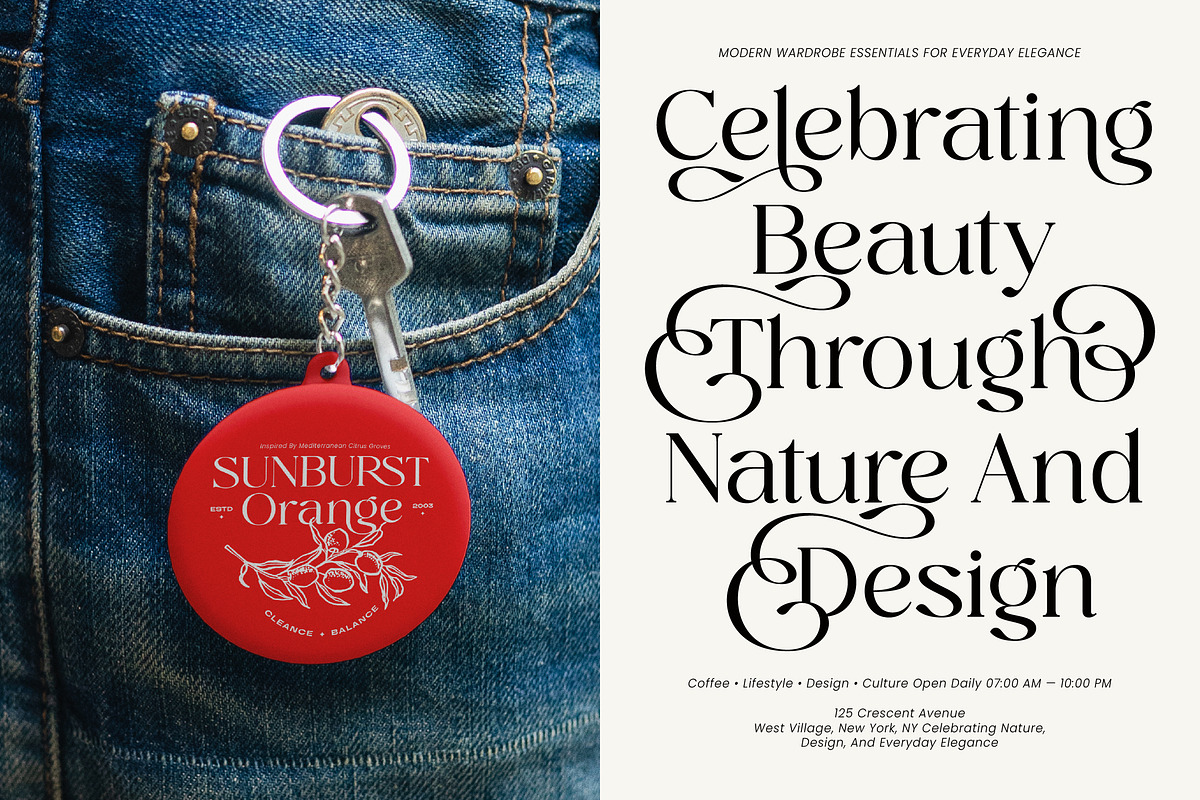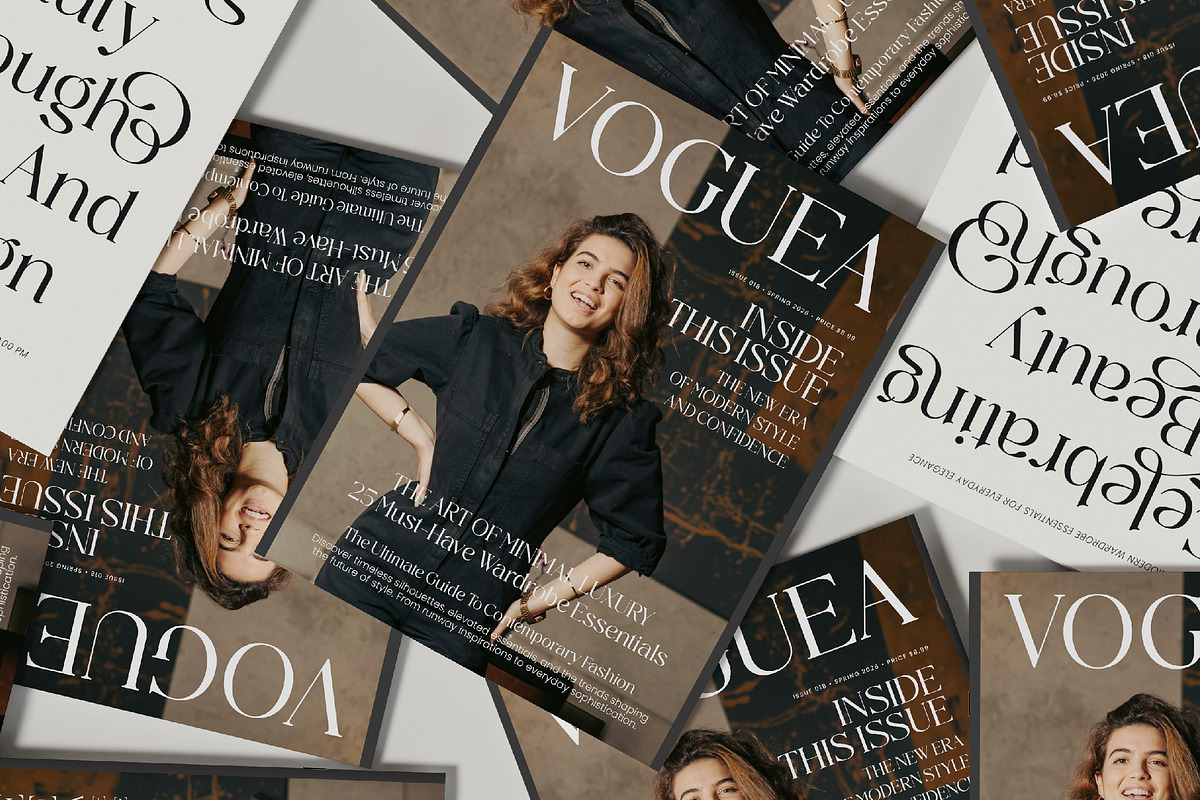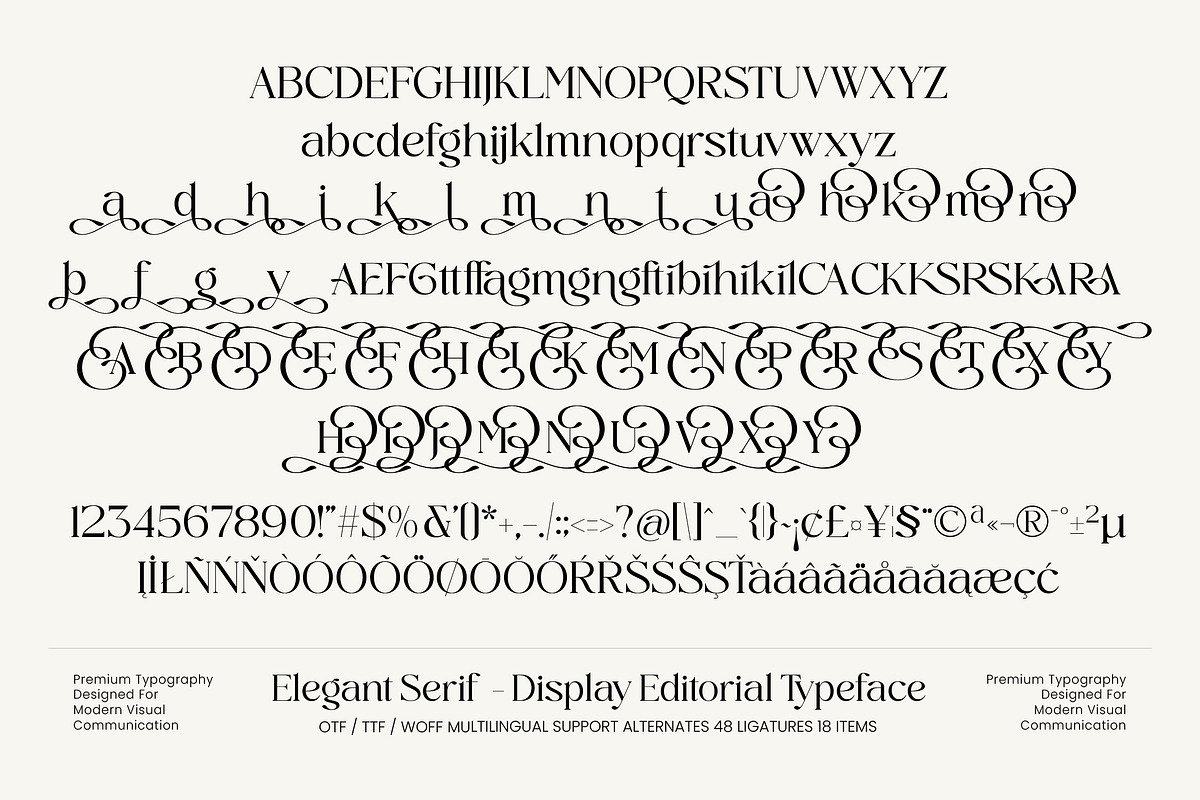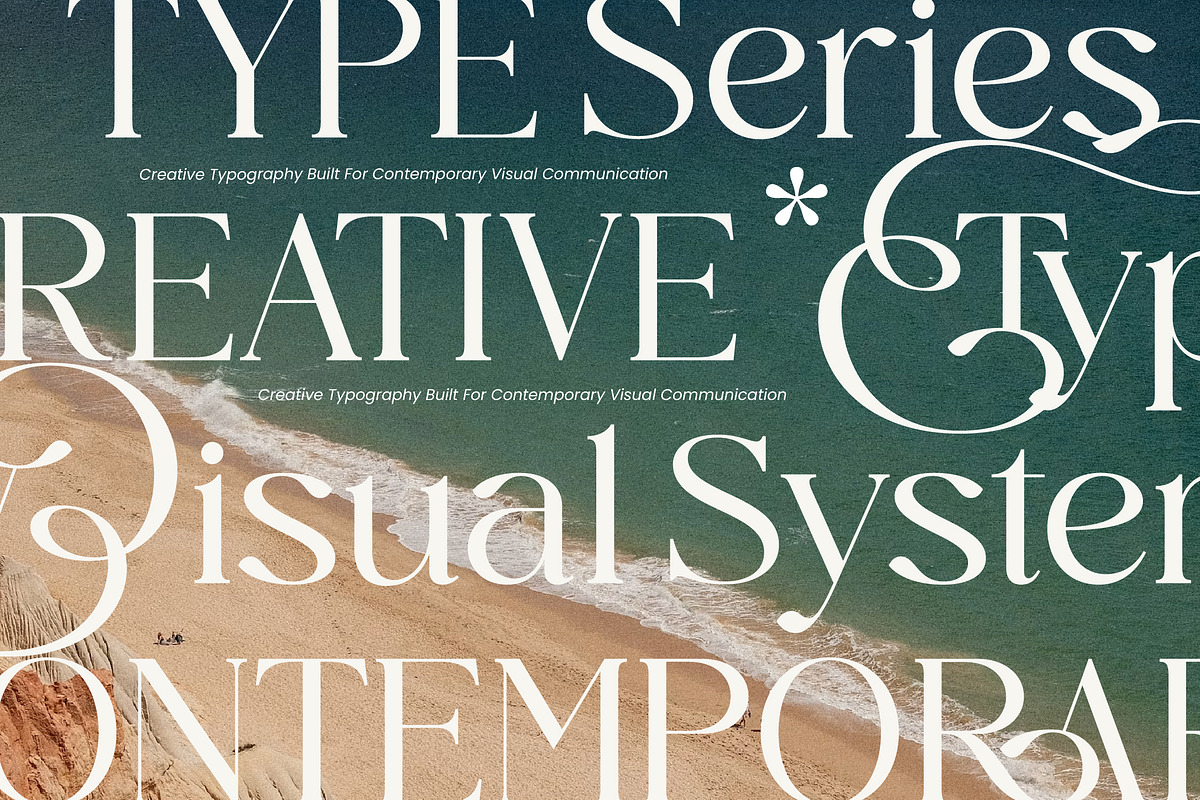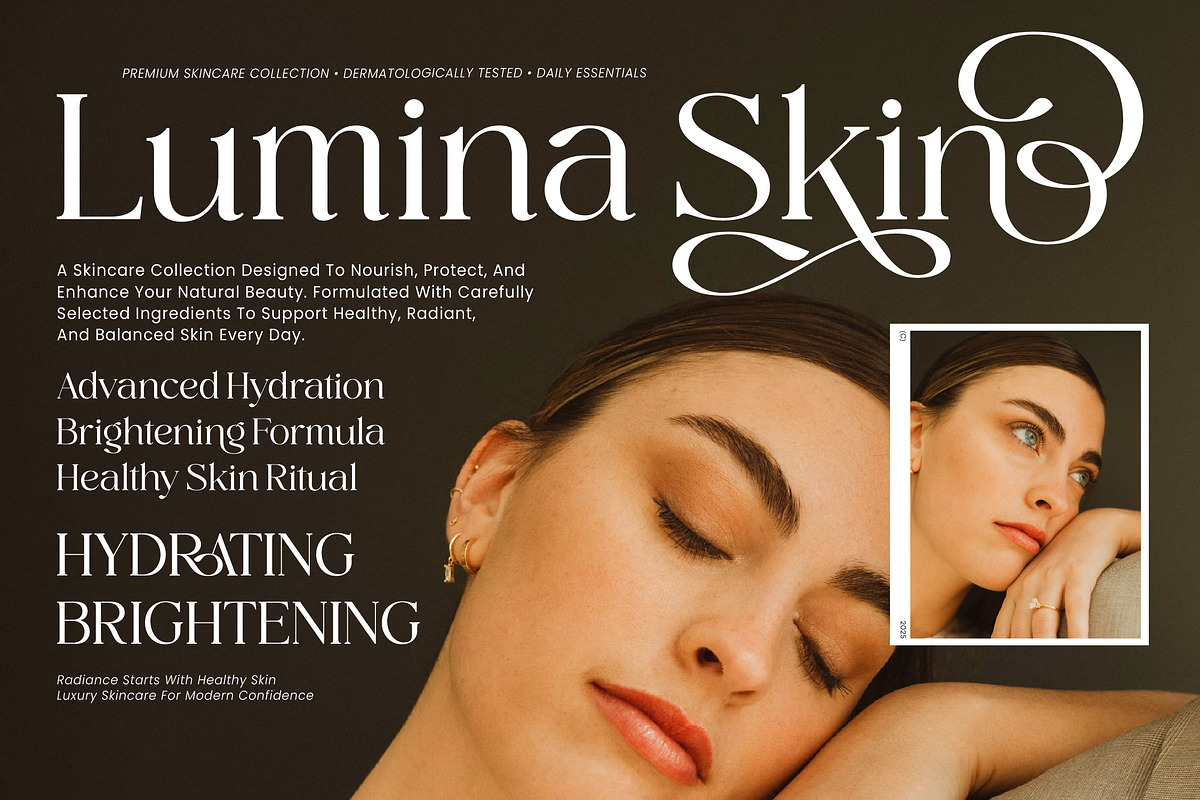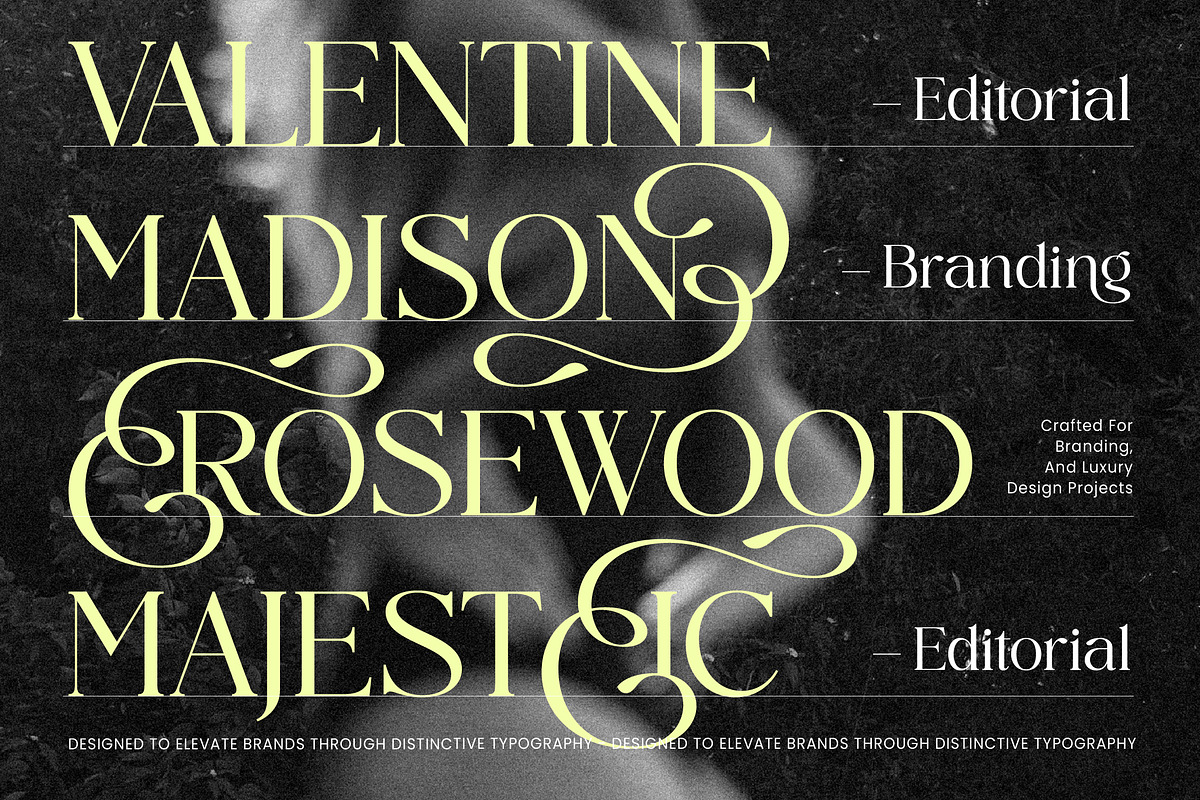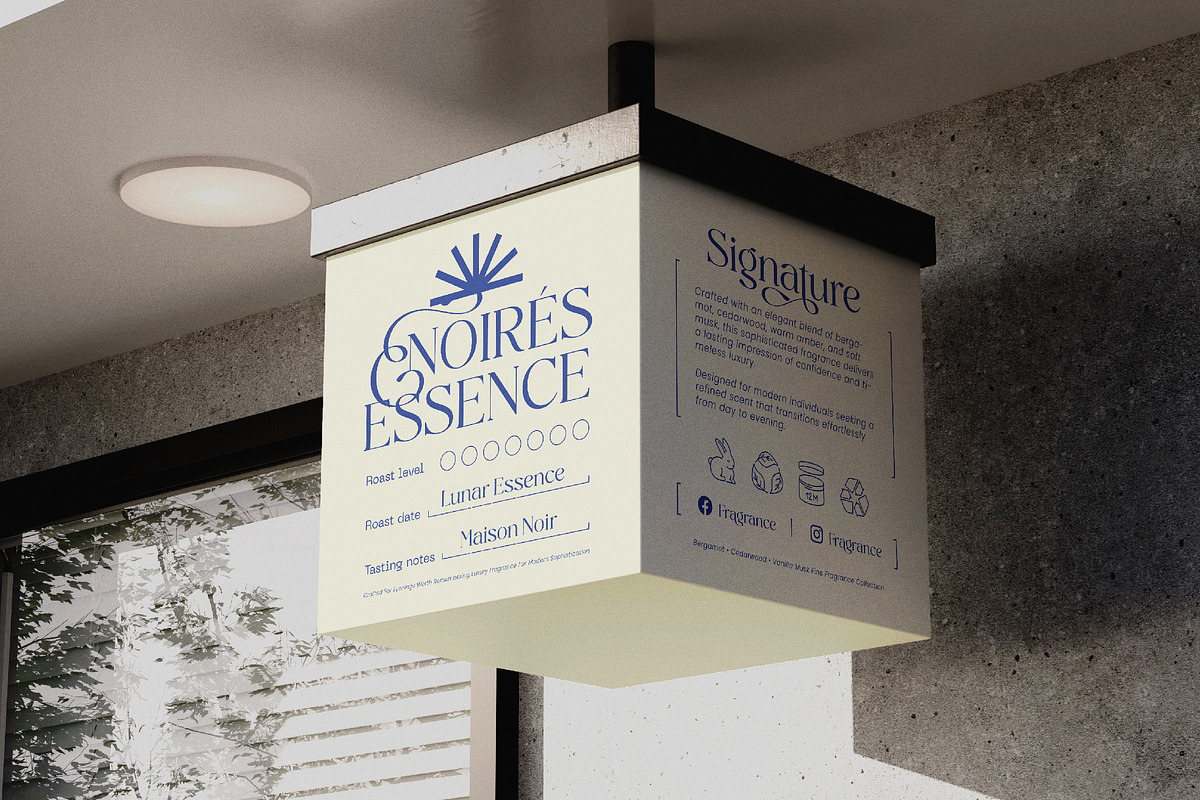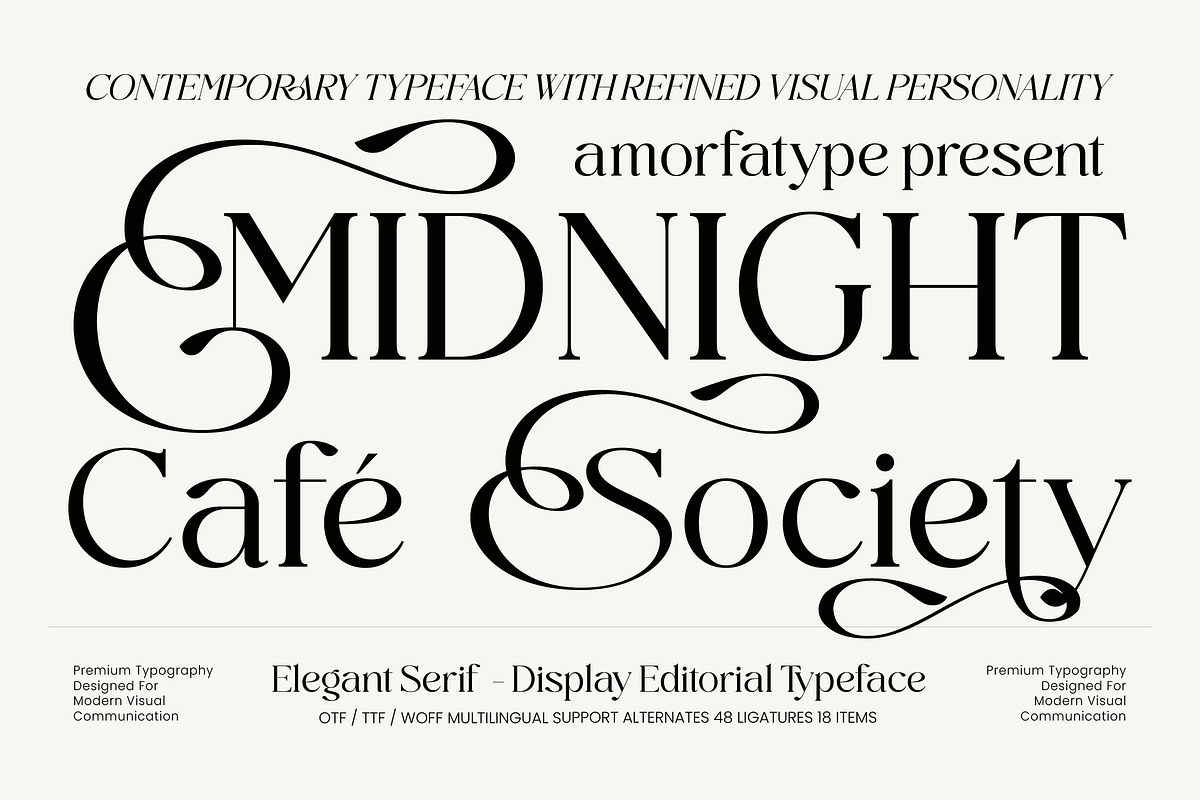
Midnight Cafe Society Elegant Serif
Midnight Cafe Society is an elegant serif display typeface crafted for contemporary editorial design, luxury branding, and sophisticated visual communication. Featuring graceful curves, refined contrast, and expressive decorative details, this typeface brings a timeless sense of elegance while maintaining a modern editorial presence.
Inspired by high-end fashion magazines, luxury beauty campaigns, boutique branding, and classic editorial typography, Midnight Cafe Society is designed to create beautiful headlines, memorable logos, premium packaging, and visually captivating layouts.
Its flowing serif structure combines sophistication and personality, making it perfect for designers seeking a balance between luxury aesthetics and contemporary style. Whether used for branding, editorial design, cosmetics, invitations, fashion campaigns, or packaging, Midnight Cafe Society delivers a refined and distinctive typographic voice.
Create elegant headlines and sophisticated visual identities with Midnight Cafe Society — an editorial serif display typeface designed for luxury, beauty, fashion, and contemporary branding.